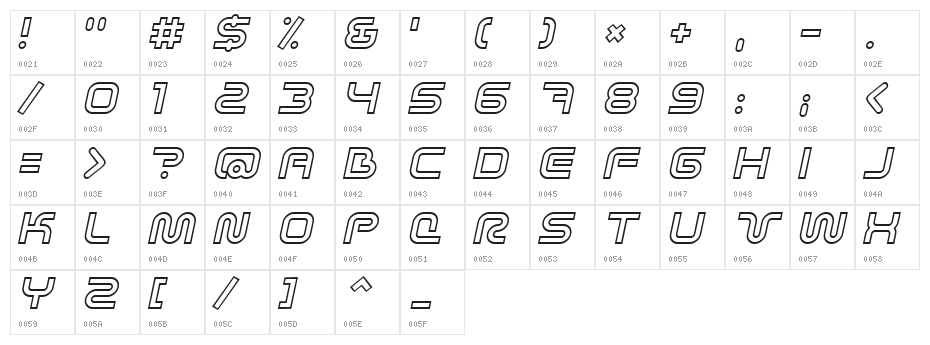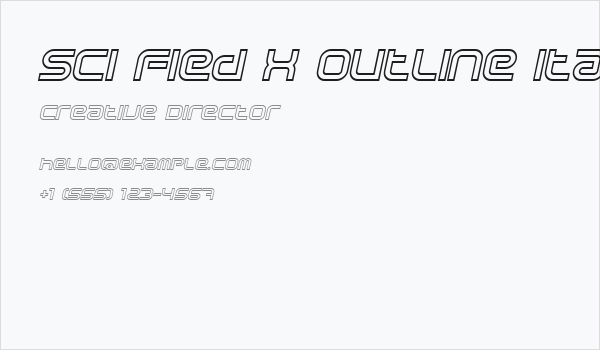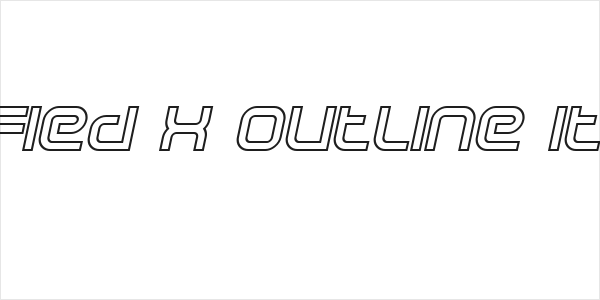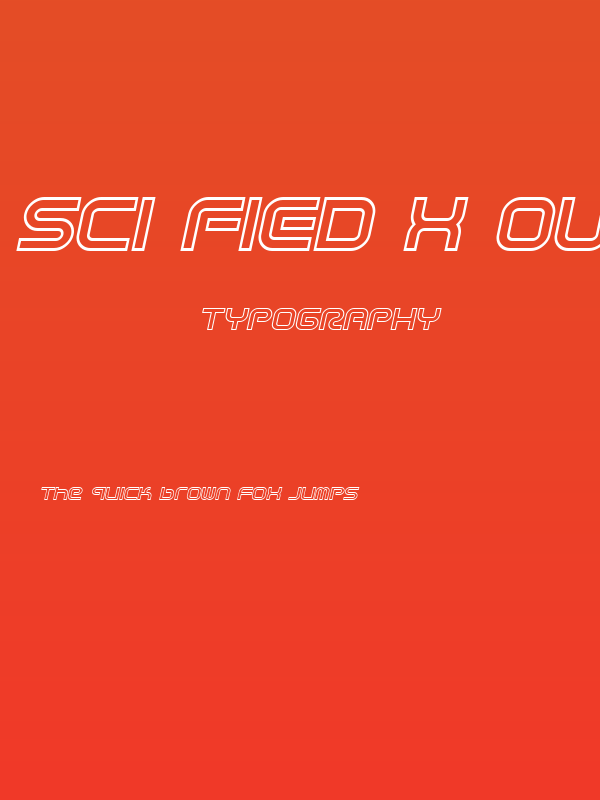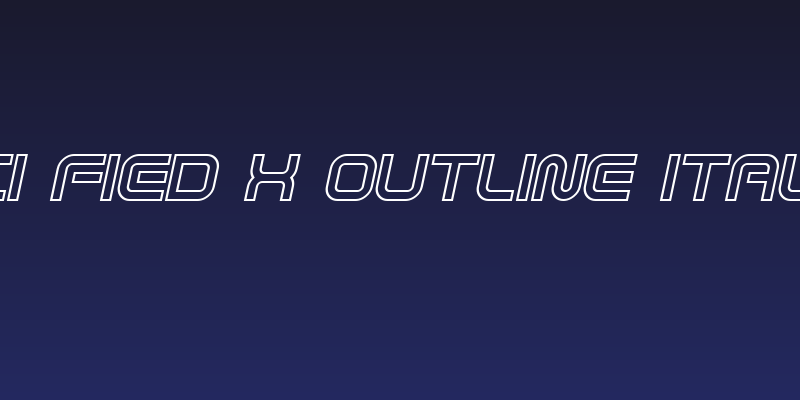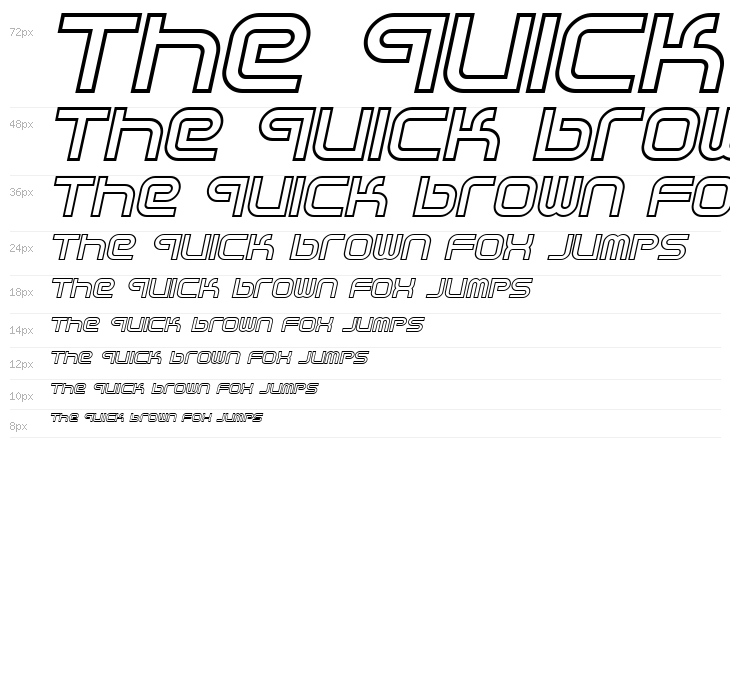
Sci Fied X Outline Italic Font
Sci Fied X Outline Italic Description
This font features a futuristic, sci-fi inspired design with an outline style that gives it a distinctive, modern look. The characters are italicized, adding a dynamic and forward-leaning appearance. The geometric shapes and clean lines create a sense of precision and technology. Each letter is crafted with a consistent stroke width, emphasizing its sleek and streamlined aesthetic. The font includes both uppercase and lowercase letters, numerals, and a variety of special characters, making it versatile for various design needs. Its unique style is perfect for projects that require a contemporary and innovative touch.
| Proposed Projects | Ideal for sci-fi themed posters, video game titles, tech branding, and futuristic design projects. |